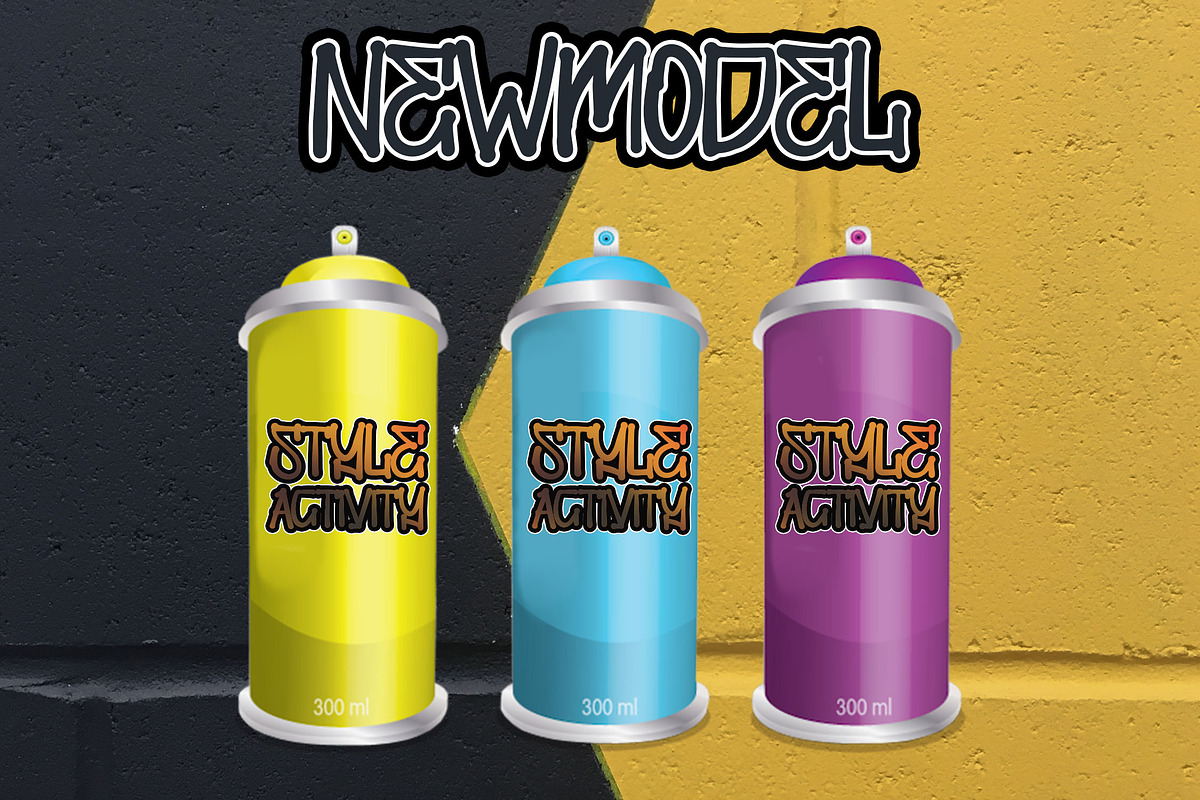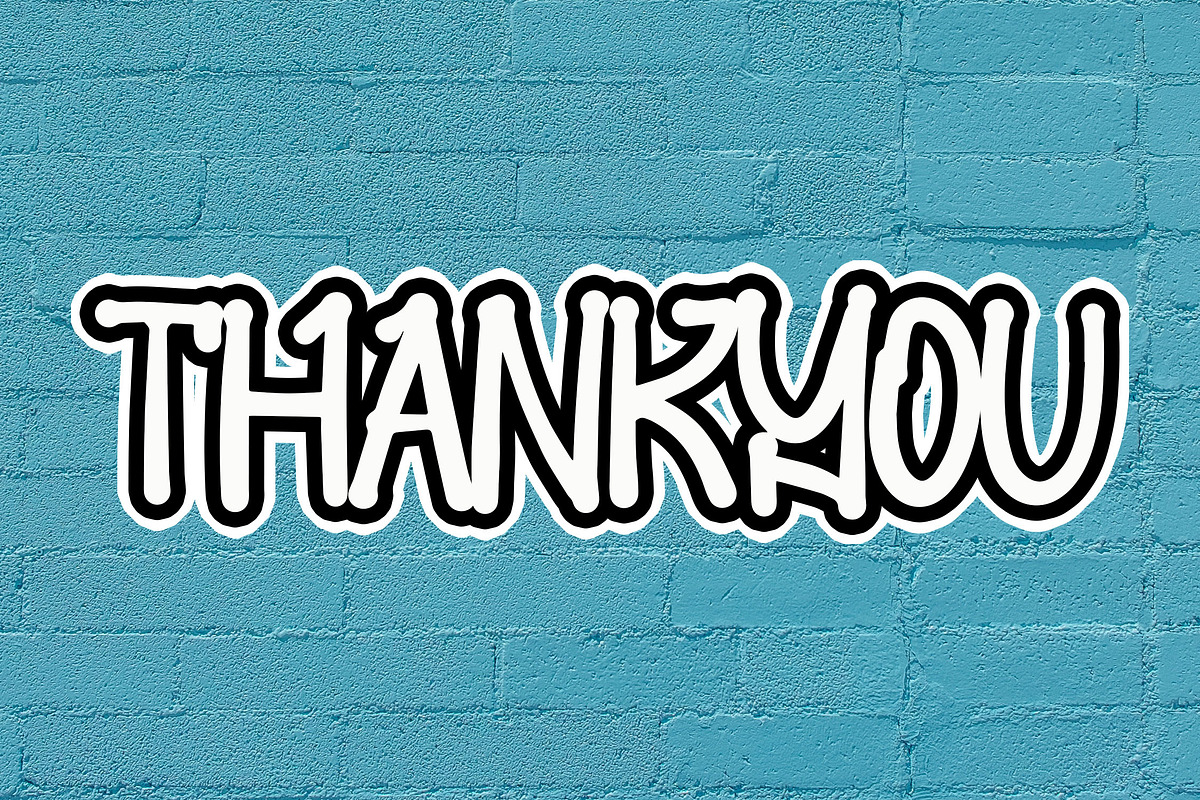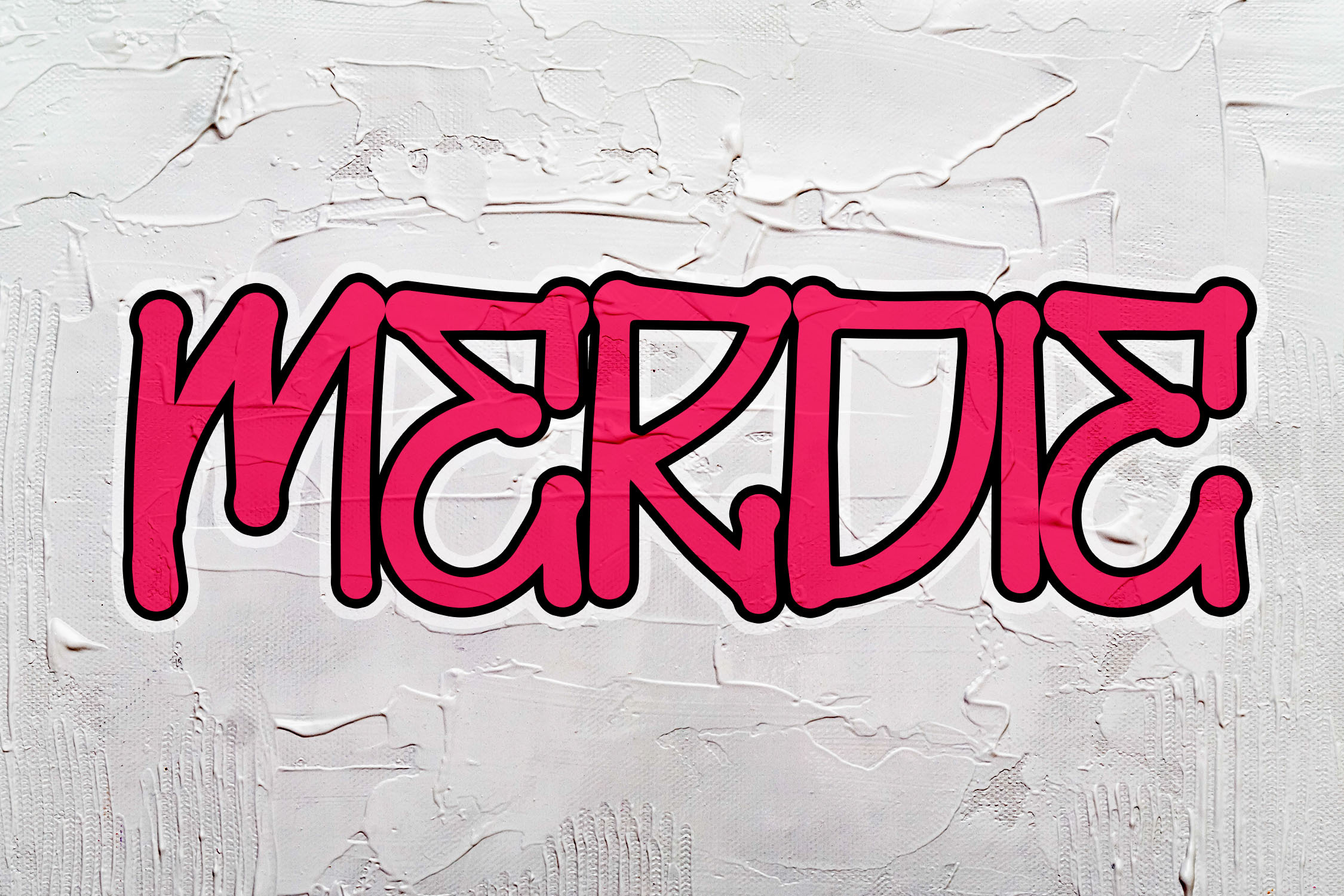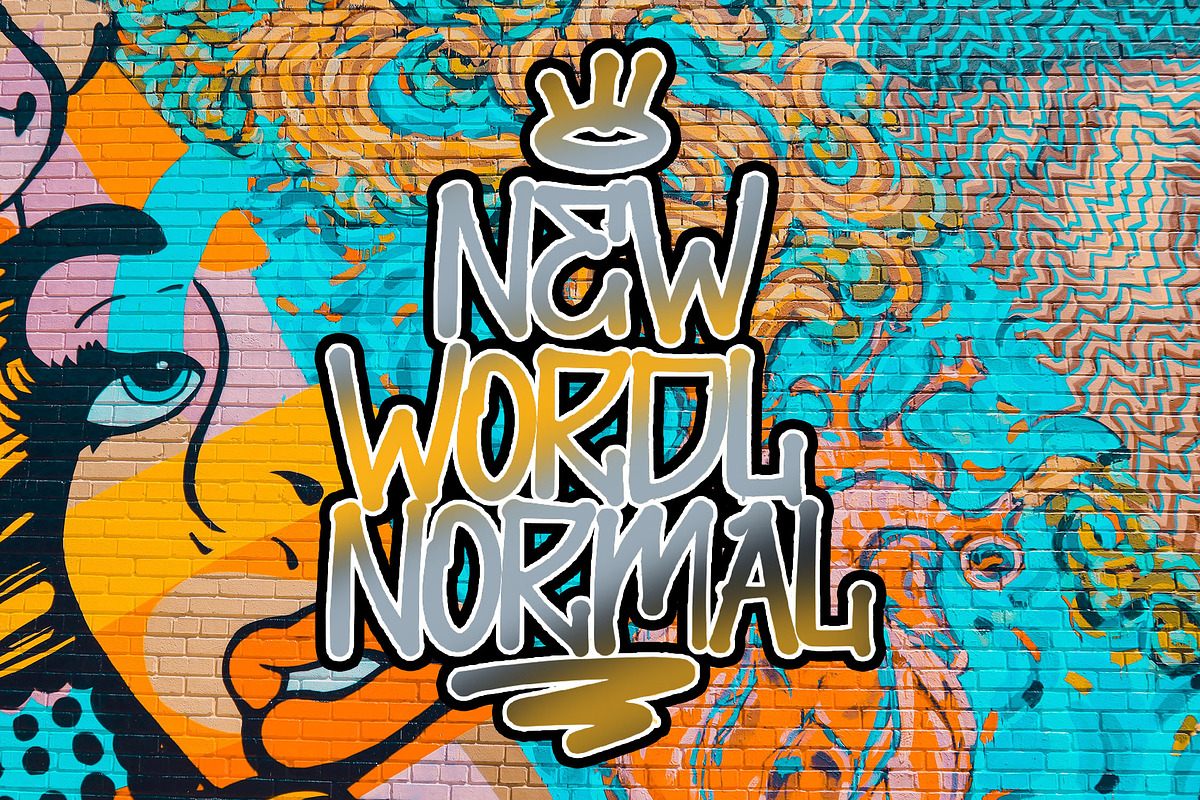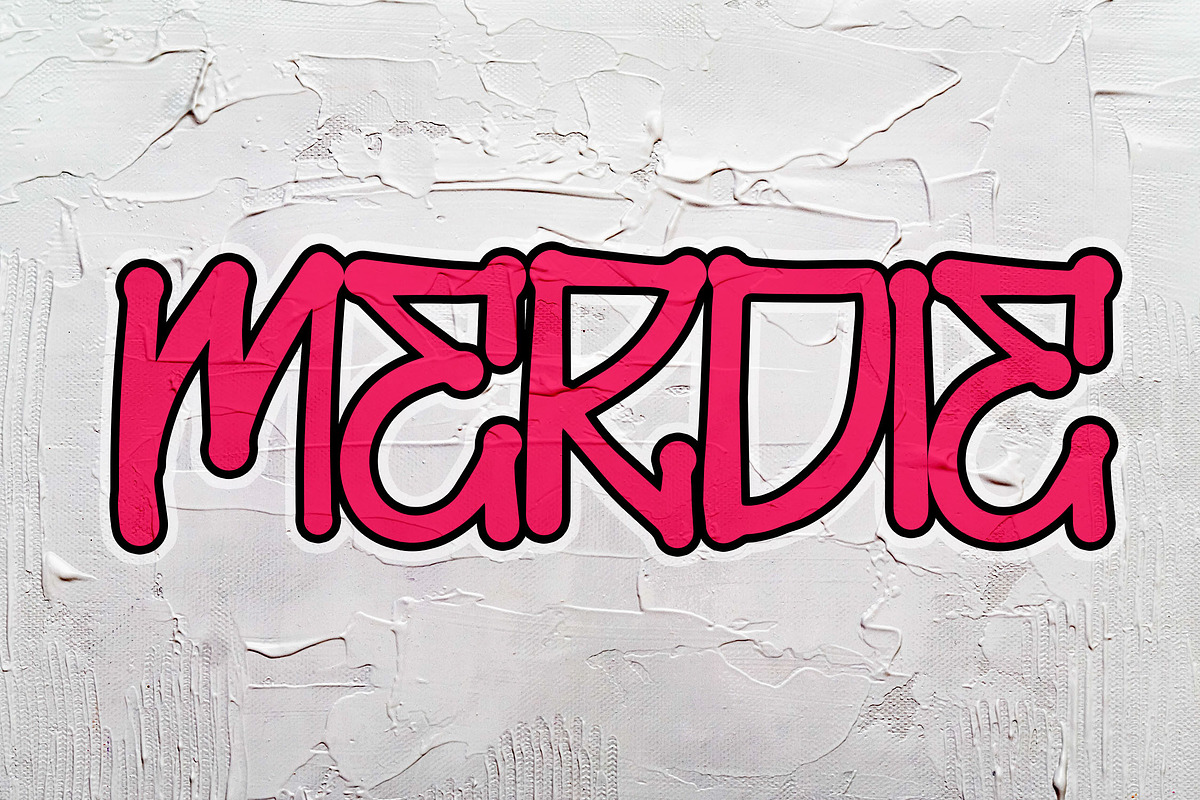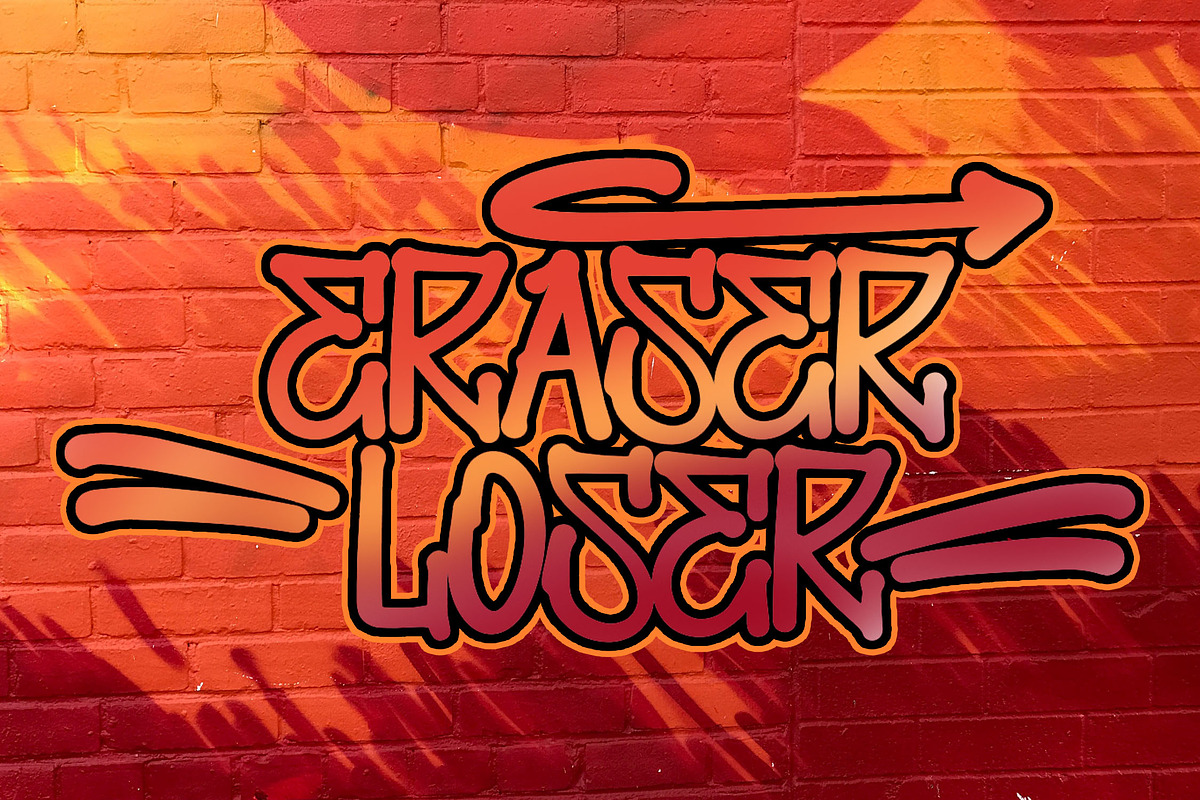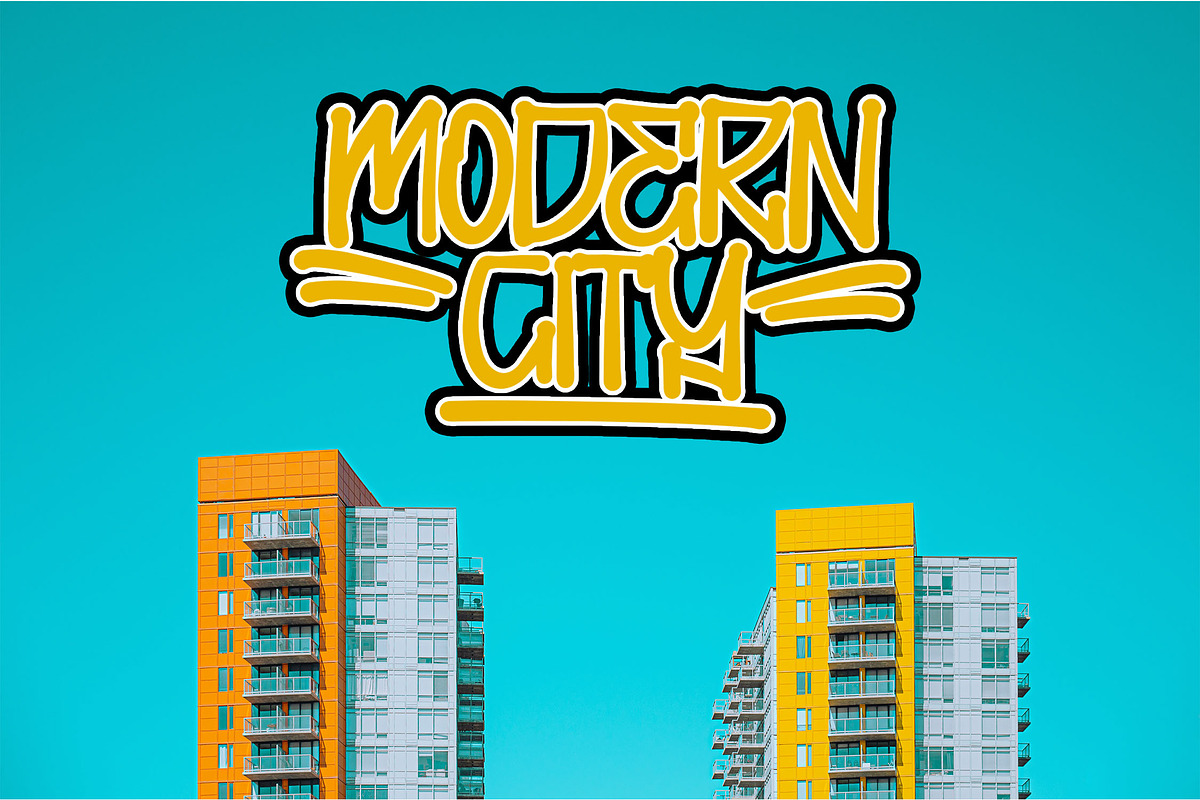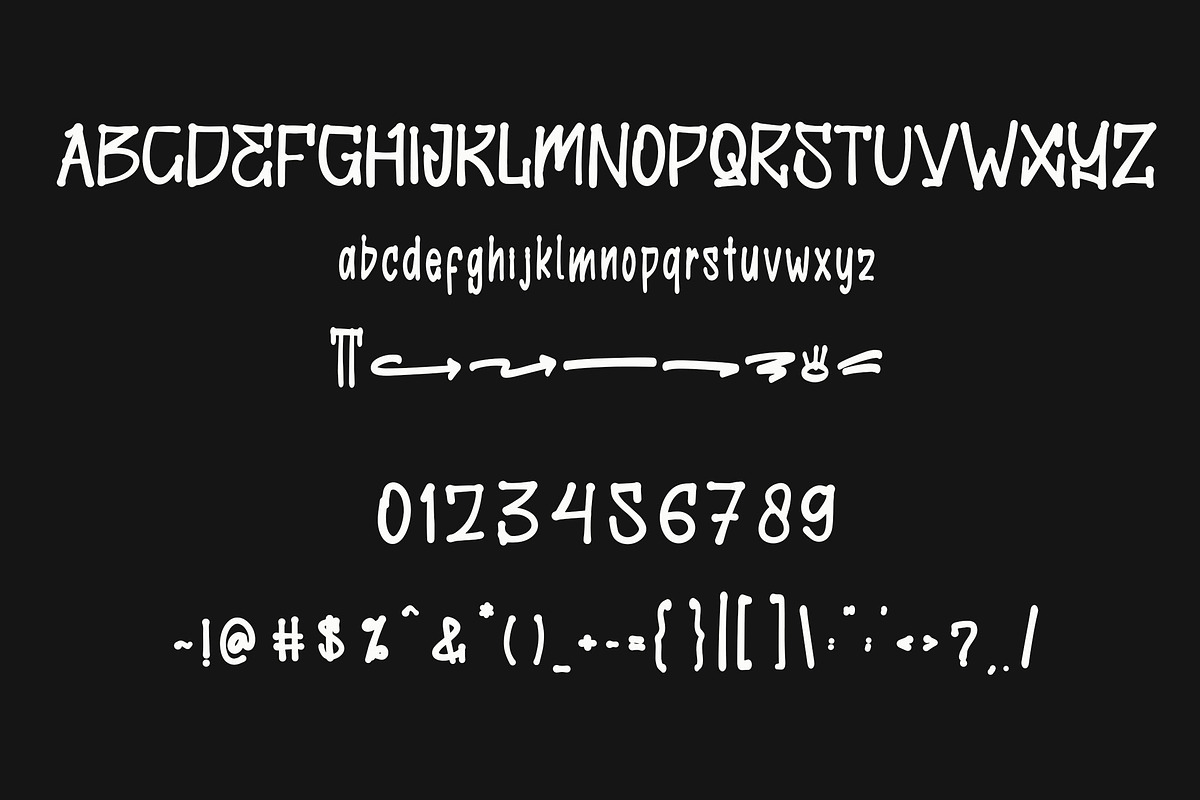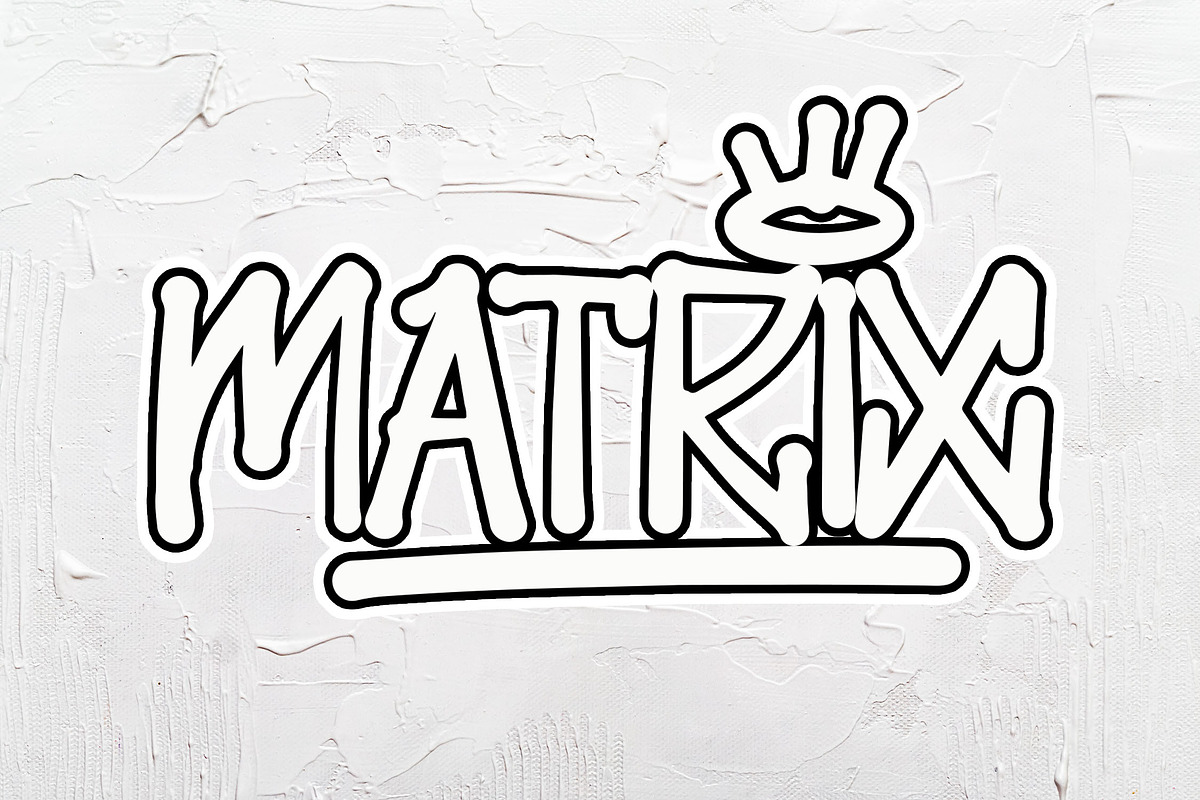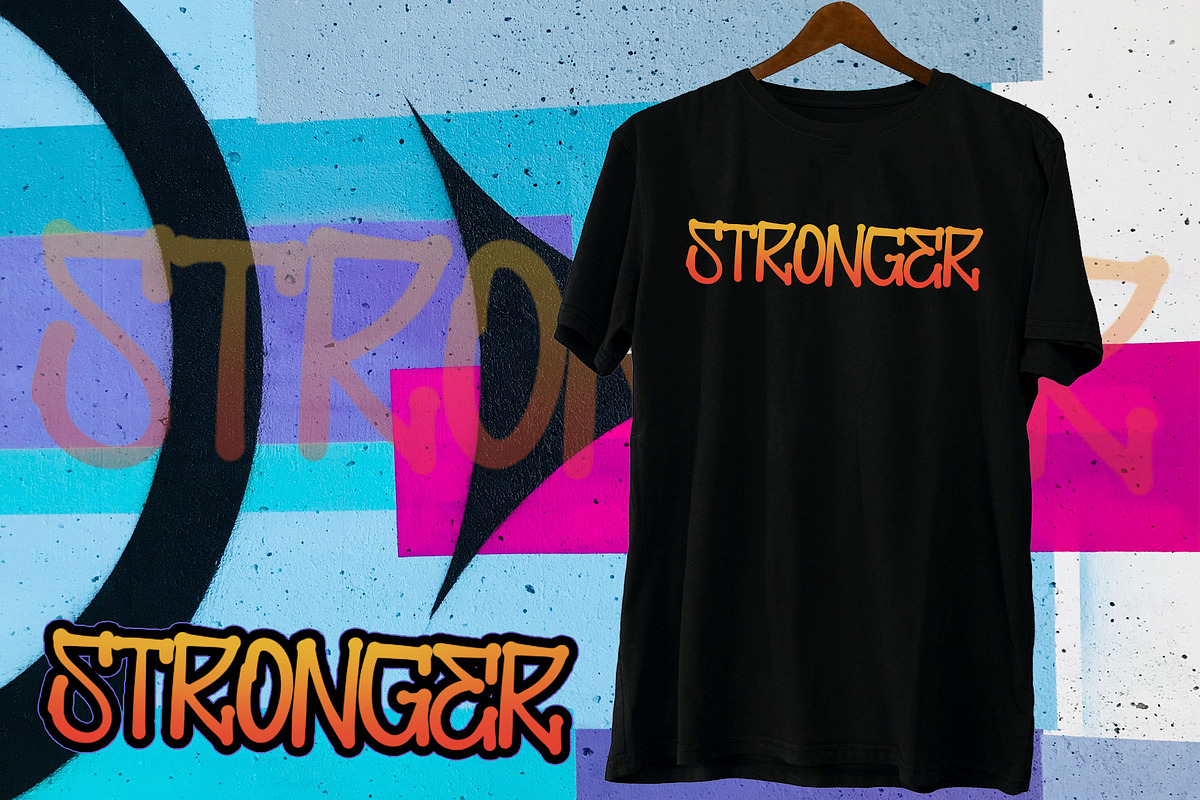
MERDIE Monoline Graffiti Font
MERDIE Graffiti Font: Product Description
MERDIE is a bold and expressive graffiti font featuring a unique monoline hand-brush style. With its dynamic and artistic character design, MERDIE brings a creative edge to your projects, making your graphics stand out. Whether for branding, posters, or creative displays, this font enhances your designs with a bold and stylish flair.
- Ligatures for seamless connections
- Swashes for added flair